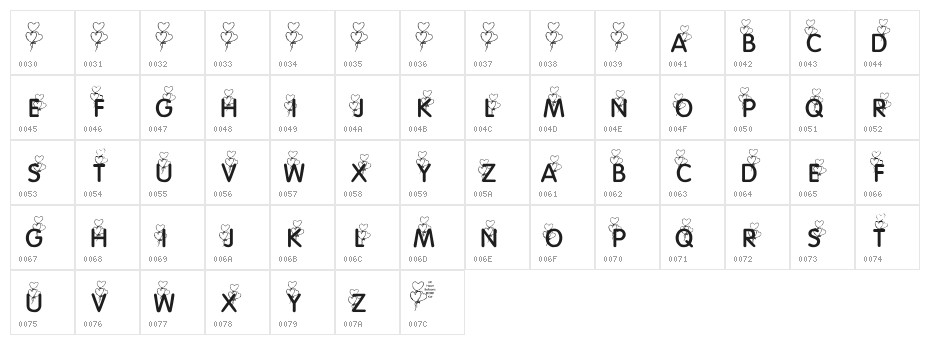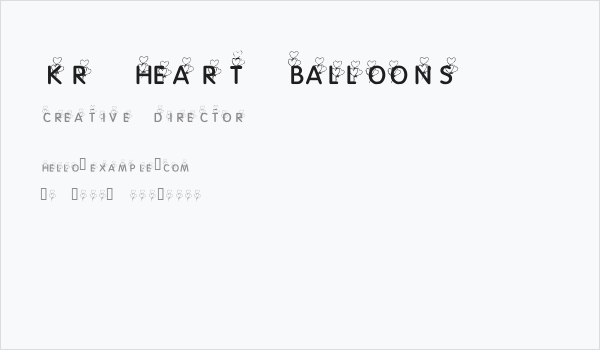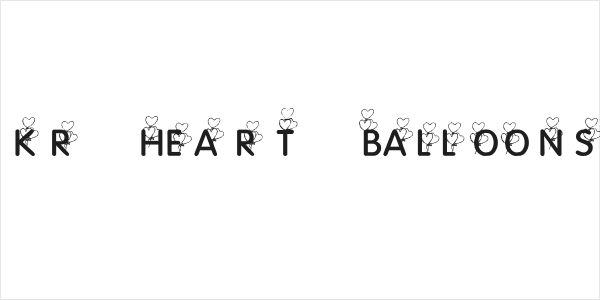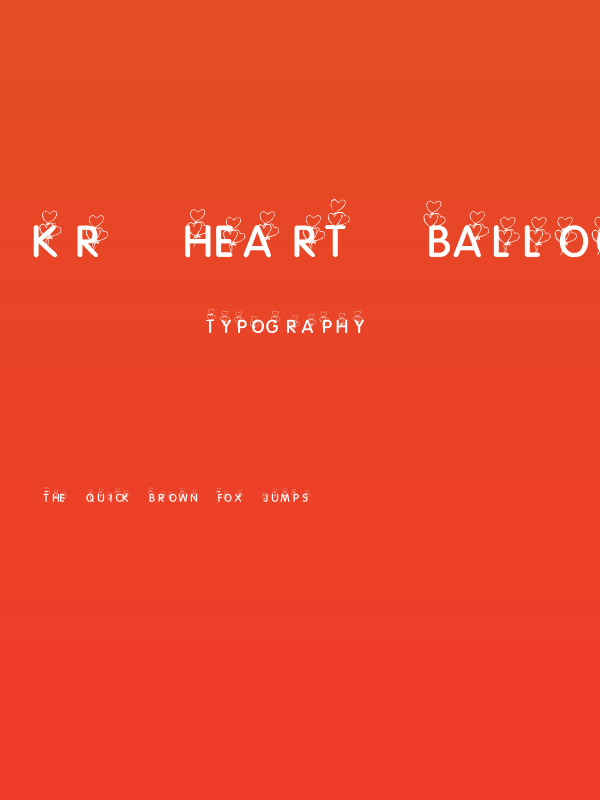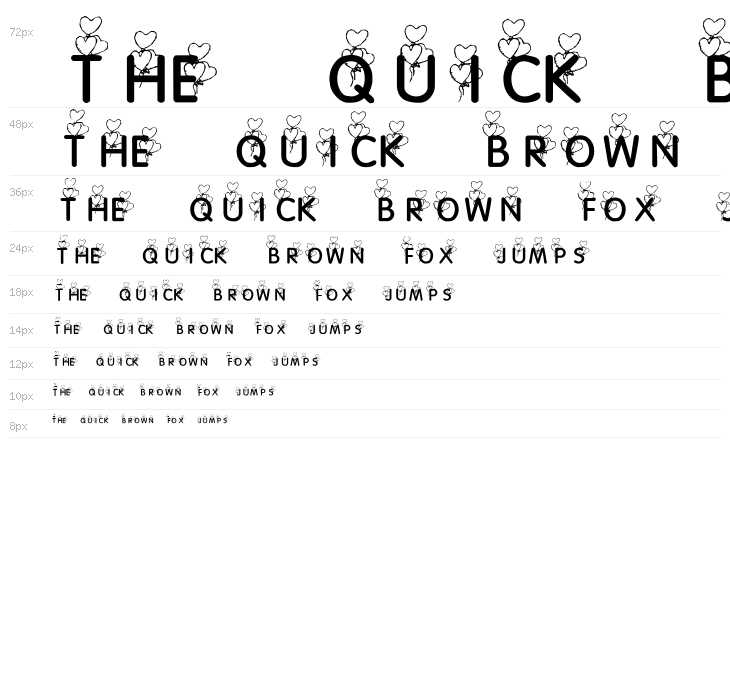
KR Heart Balloons Font
KR Heart Balloons Description
This playful and decorative font features uppercase and lowercase letters adorned with heart-shaped balloons. Each character is accompanied by a whimsical balloon design, adding a touch of romance and fun. The letters are bold and clear, making them easily readable despite the decorative elements. The font's unique style makes it ideal for projects that require a lighthearted and affectionate tone, such as greeting cards, invitations, or children's party decorations. The combination of bold lettering and delicate balloon illustrations creates a charming contrast that is visually appealing.
| Proposed Projects | Ideal for greeting cards, invitations, children's party decorations, and romantic-themed designs. |